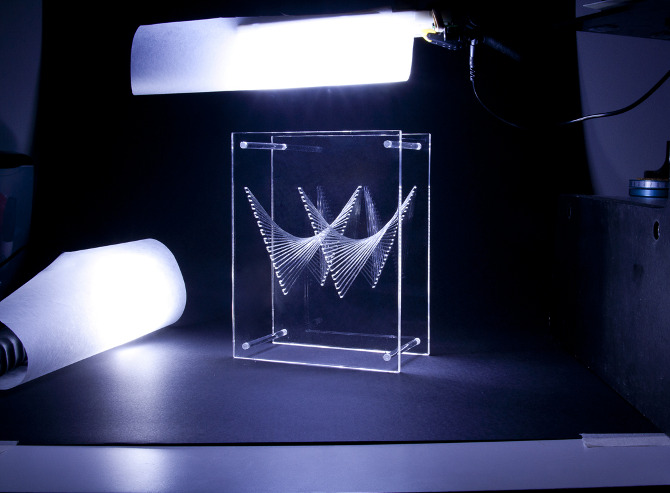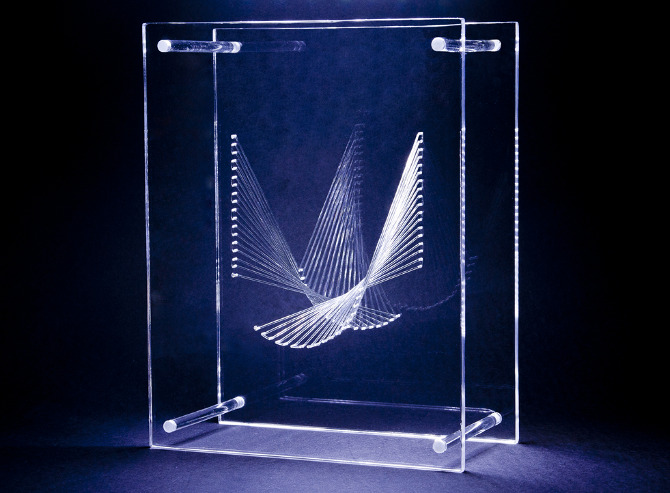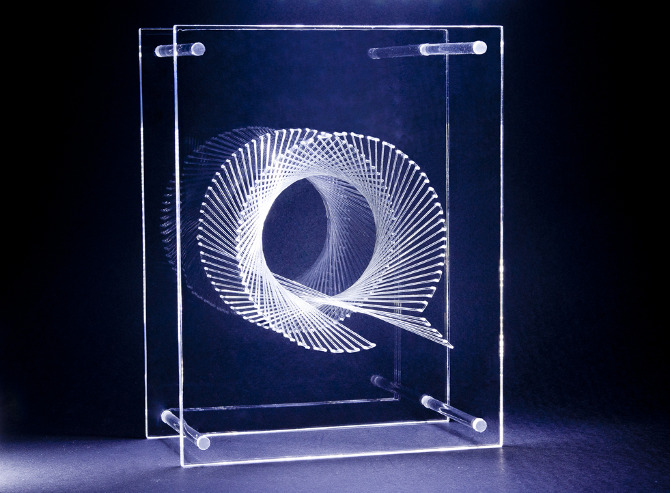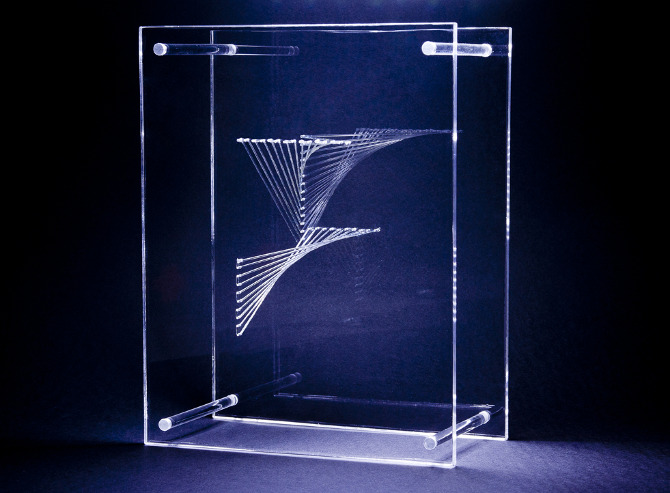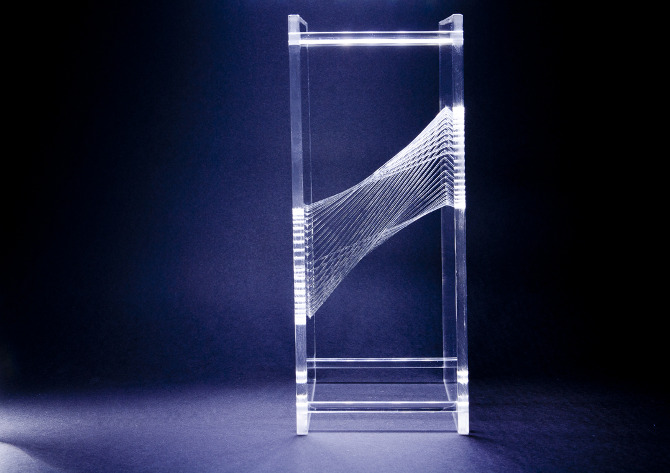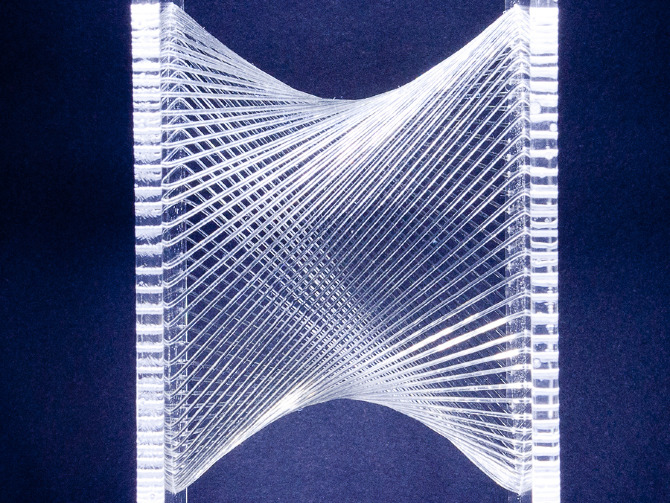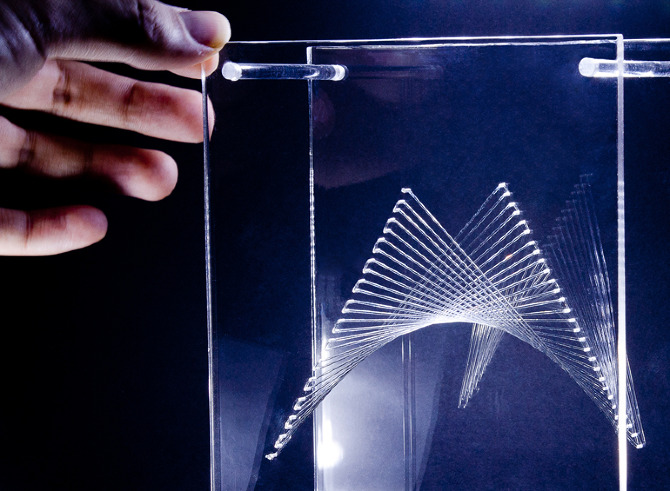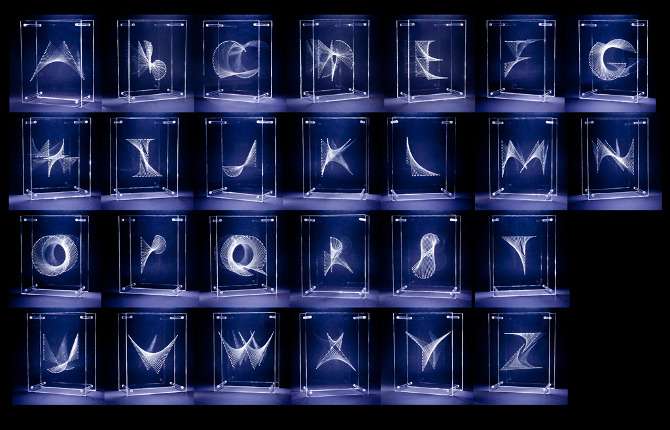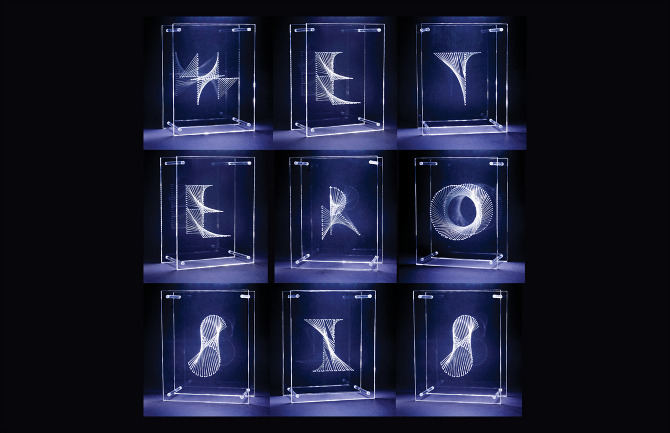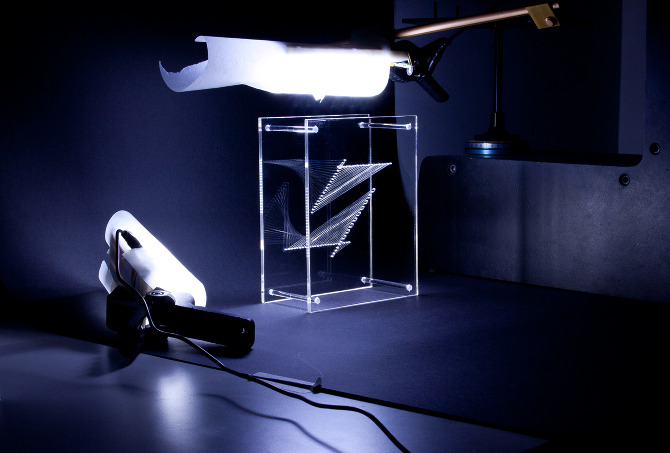
Heterosis Typeface
Each character in this typeface was designed by 'blending' two (essentially 1 dimensional) vector lines across a spatial plane in order to produce a 3D letter. The result is a set of characters that holds more possibilities than the standard 2D alphabets to which we are accustomed.
Materials: Transparent Elastic, Transparent Acrylic
Dimensions: 5.5” x 7” x 3”
Design: Brian Banton